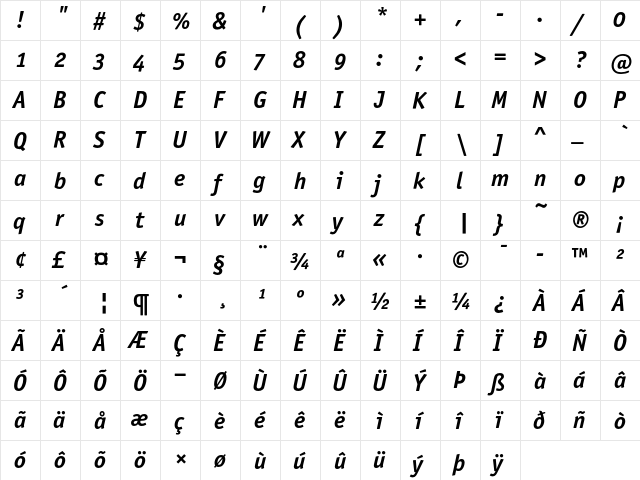
Officina Sans ITC Bold Italic OS Font Preview
Design Context for Officina Sans ITC Typeface
Officina Sans ITC takes a measured approach to typography — its balanced proportions and neutral character make it a reliable workhorse for both digital and print work. Its italic angle brings a sense of urgency and motion to the letterforms. The heavy weight commands attention and anchors typographic hierarchies.
Pro Tip: Use Officina Sans ITC for emphasis, pull quotes, and subheadings where its slanted energy can add rhythm to the layout.